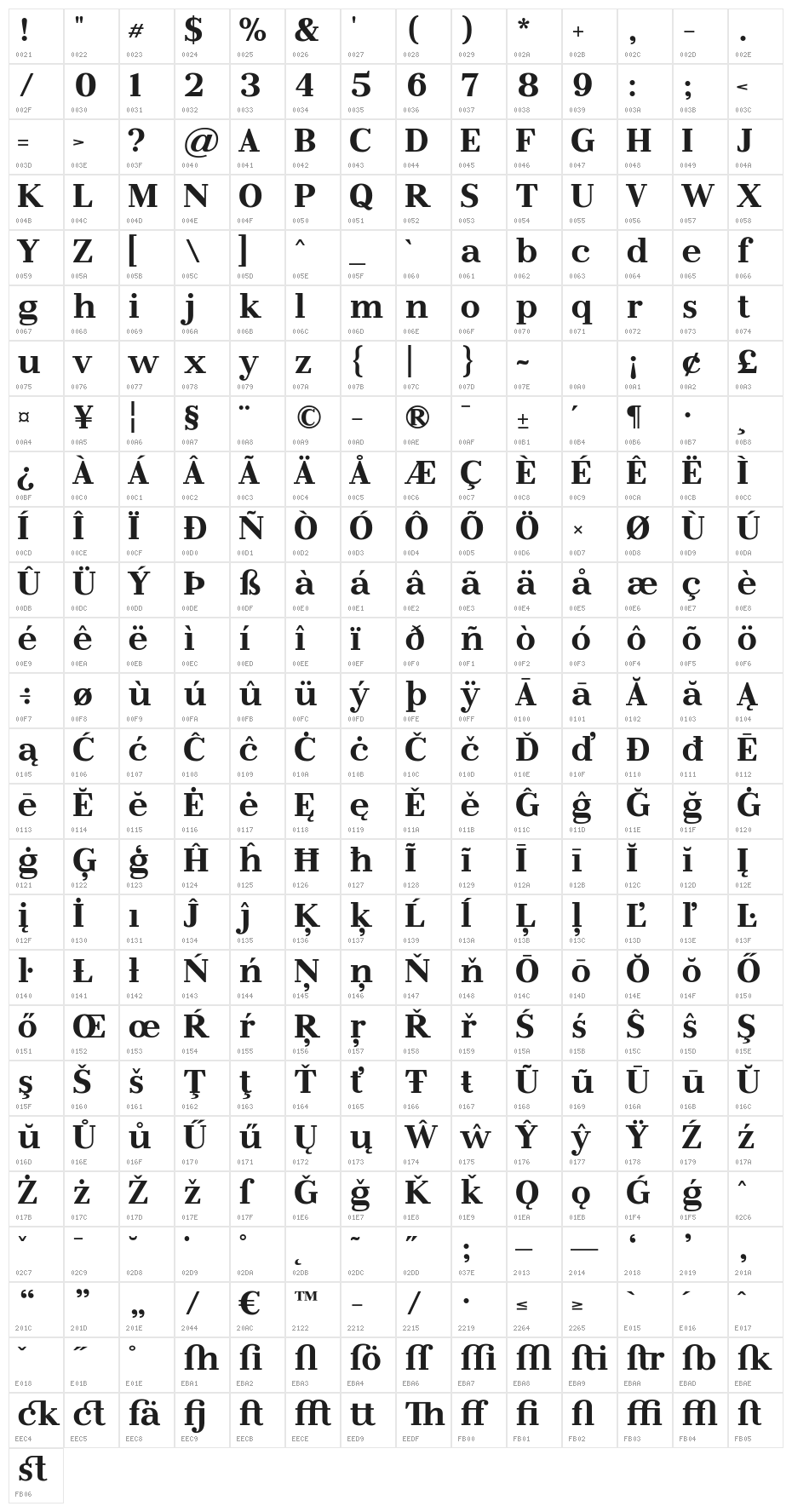
Litoland Font
Litoland Description
This font features a classic serif design, characterized by its elegant and traditional appearance. The serifs are pronounced, adding a touch of sophistication and readability to the text. The uppercase letters are bold and commanding, while the lowercase letters maintain a consistent style with slightly rounded edges. The numerals are clear and distinct, making them suitable for both formal and informal contexts. Special characters are well-integrated, ensuring versatility in various typesetting scenarios. Overall, this font exudes a timeless quality, making it ideal for projects that require a touch of elegance and formality.
Overall StyleClassic
Proposed ProjectsIdeal for book covers, formal invitations, branding materials, and editorial design.